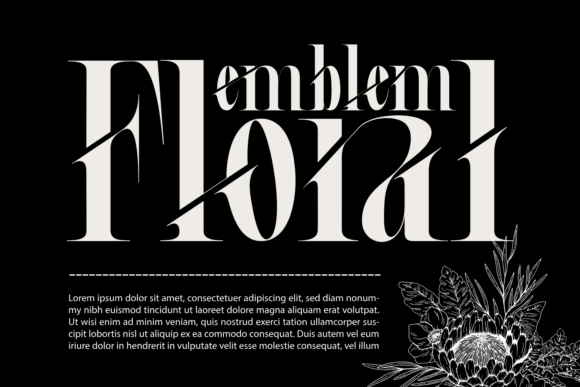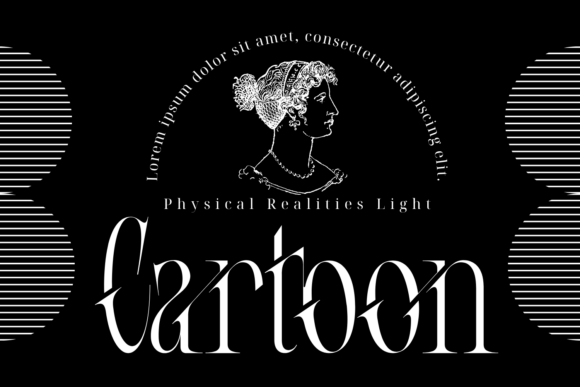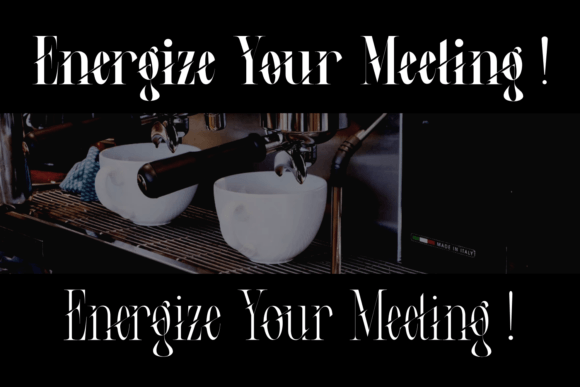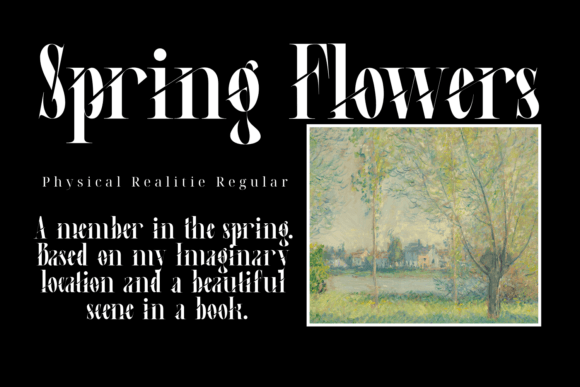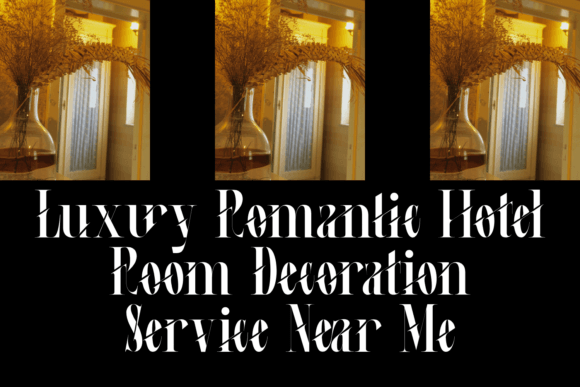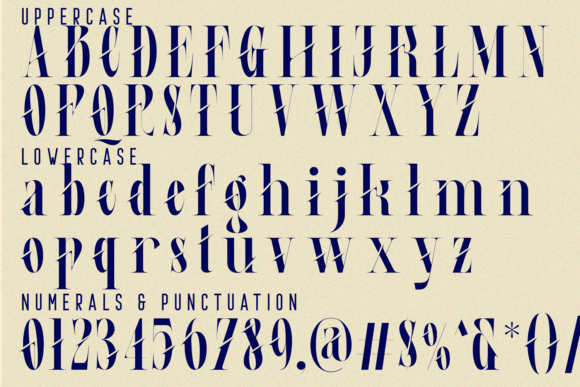
Introduction to Physical Realities Font
Physical Realities Font – Stylish Display Serif Font is a modern, elegant typeface designed to bring sophistication and creativity to any project.
Featuring intricate ligatures and unique, this font beautifully blends multiple letters into distinctive, seamless shapes, giving your typography a one-of-a-kind, artistic flair This font offers beautiful typographic harmony for a diversity of design projects, including logos & branding, social media posts, advertisements & product designs.
Key Features of Physical Realities Font
Why Choose Physical Realities Font?
Physical Realities Font offers exceptional quality and versatility, making it a valuable addition to your design toolkit. Whether you’re creating for personal projects or commercial use, Physical Realities Font delivers professional results.